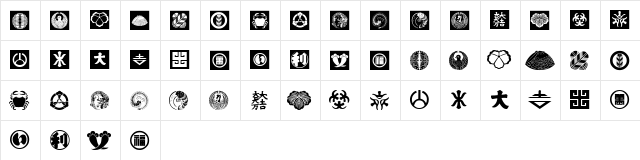
Oriental Icons Regular Font Preview
Oriental Icons Regular
Design Context for Oriental Icons Typeface
Oriental Icons is a composed and adaptable typeface that performs quietly and consistently across a wide range of design contexts.